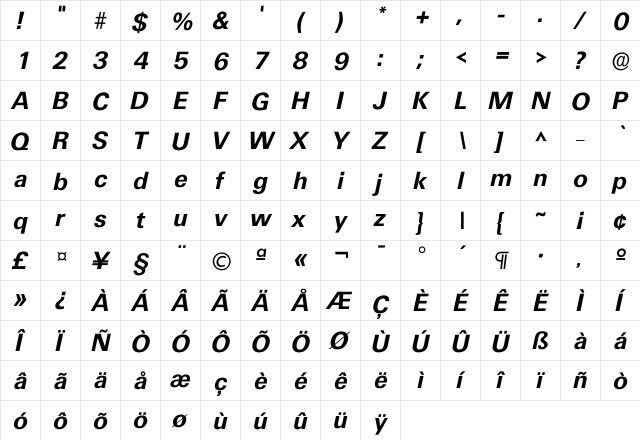
Iultimate DemiBold
Design Context for Iultimate Typeface
Iultimate offers clean, dependable letterforms without strong stylistic allegiance, making it a practical choice for designers who need flexibility. The heavy weight commands attention and anchors typographic hierarchies.